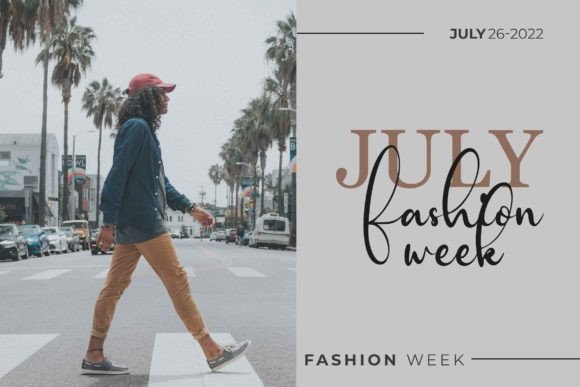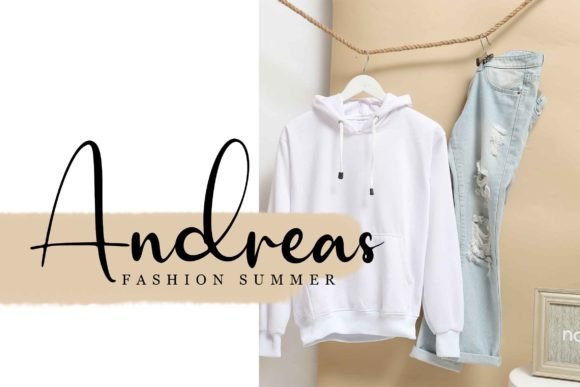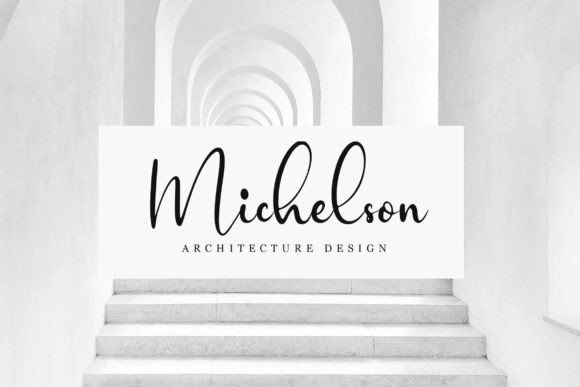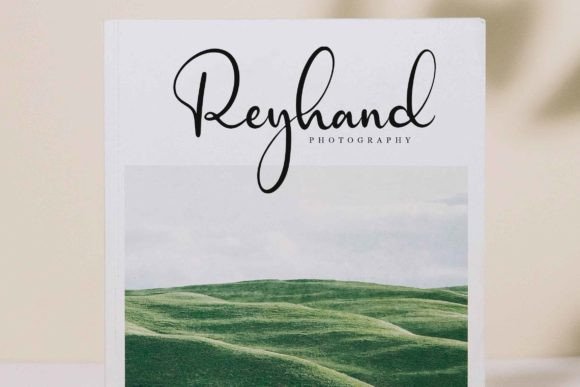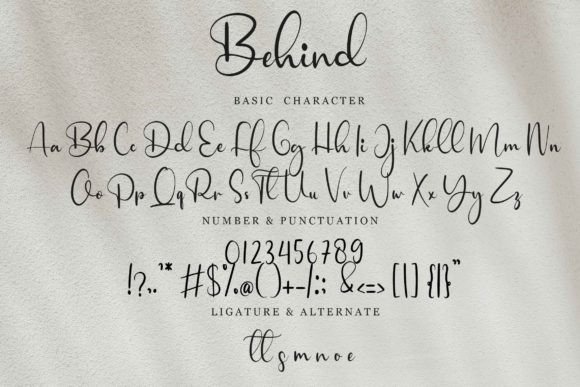
About Behind Font
“Behind” is not merely a font; it’s a handwritten signature font that embodies elegance and luxury. With its refined and opulent impression, “Behind” stands as the perfect choice for a range of design applications, including logos, branding, watermarks, greeting cards, and more. Crafted to leave a lasting impact, this font adds a touch of sophistication to your projects, making them truly stand out.
The elegance of “Behind” is evident in every stroke and curve, giving your text a distinct and luxurious feel. Whether you’re creating a signature logo or designing a watermark for your photography, this font effortlessly elevates the visual appeal of your work. Its versatility makes it suitable for various design contexts, allowing you to infuse a sense of style and refinement.
In branding, “Behind” becomes a powerful tool to convey a sense of luxury and exclusivity. Logos created with this signature font radiate sophistication, leaving a lasting impression on your audience. Greeting cards adorned with “Behind” become a reflection of elegance, conveying a sense of thoughtfulness and personal touch.
Whether you’re designing for personal or professional use, “Behind” offers a unique and memorable aesthetic. Its handwritten nature adds a personal touch to your projects, creating a connection with the audience. With “Behind,” you’re not just choosing a font; you’re selecting a design element that transforms your work into a statement of luxury and elegance.